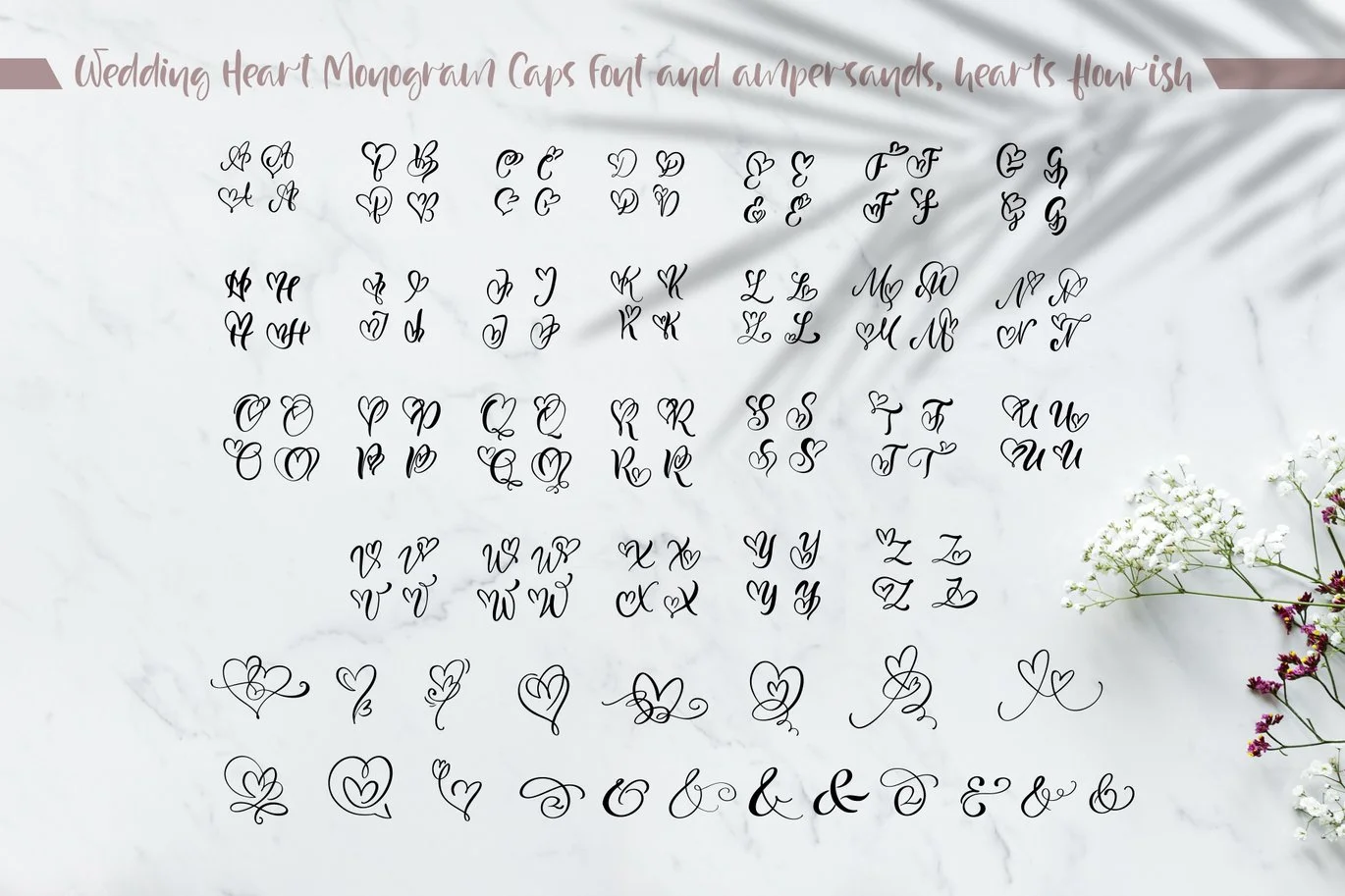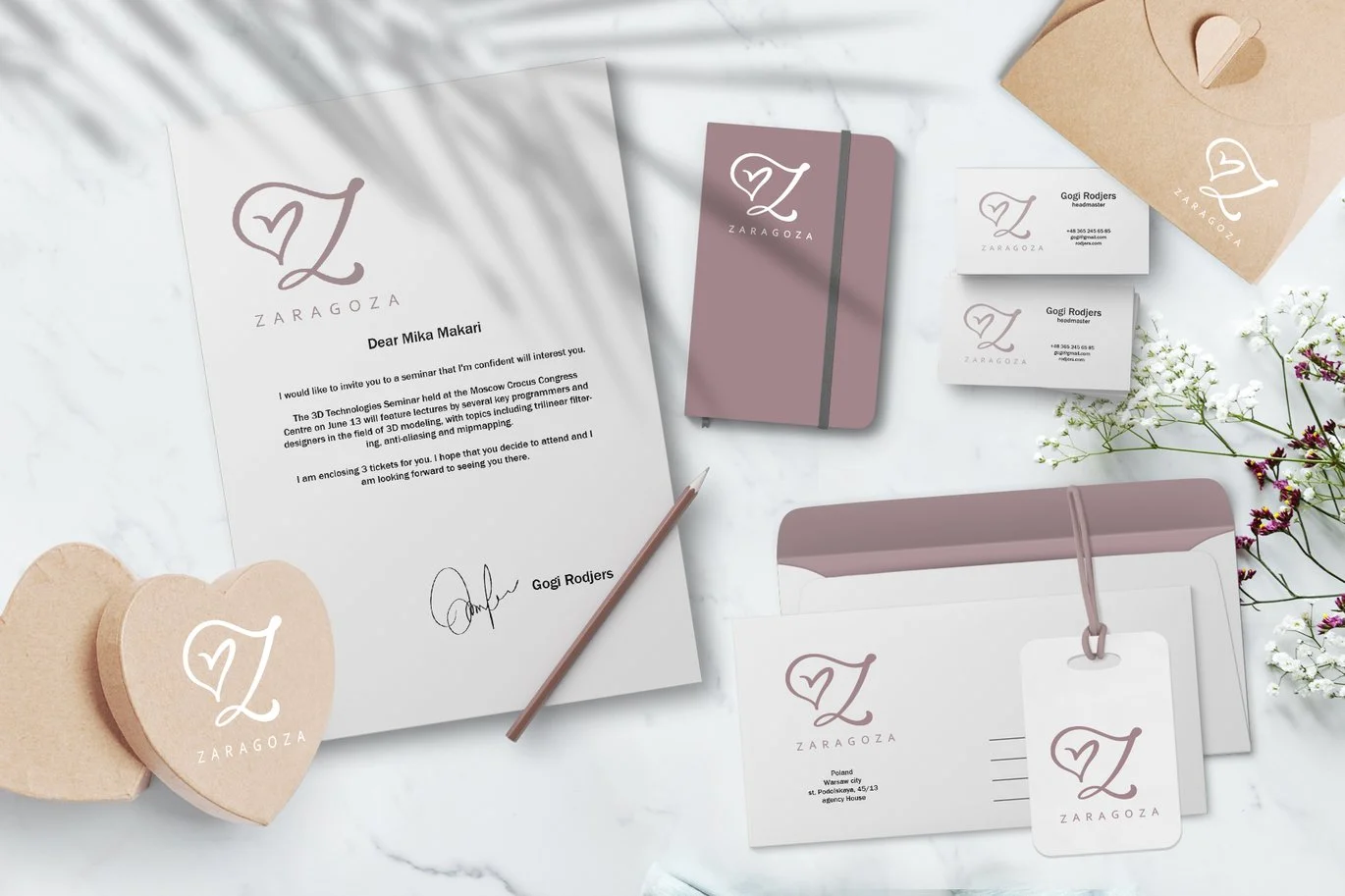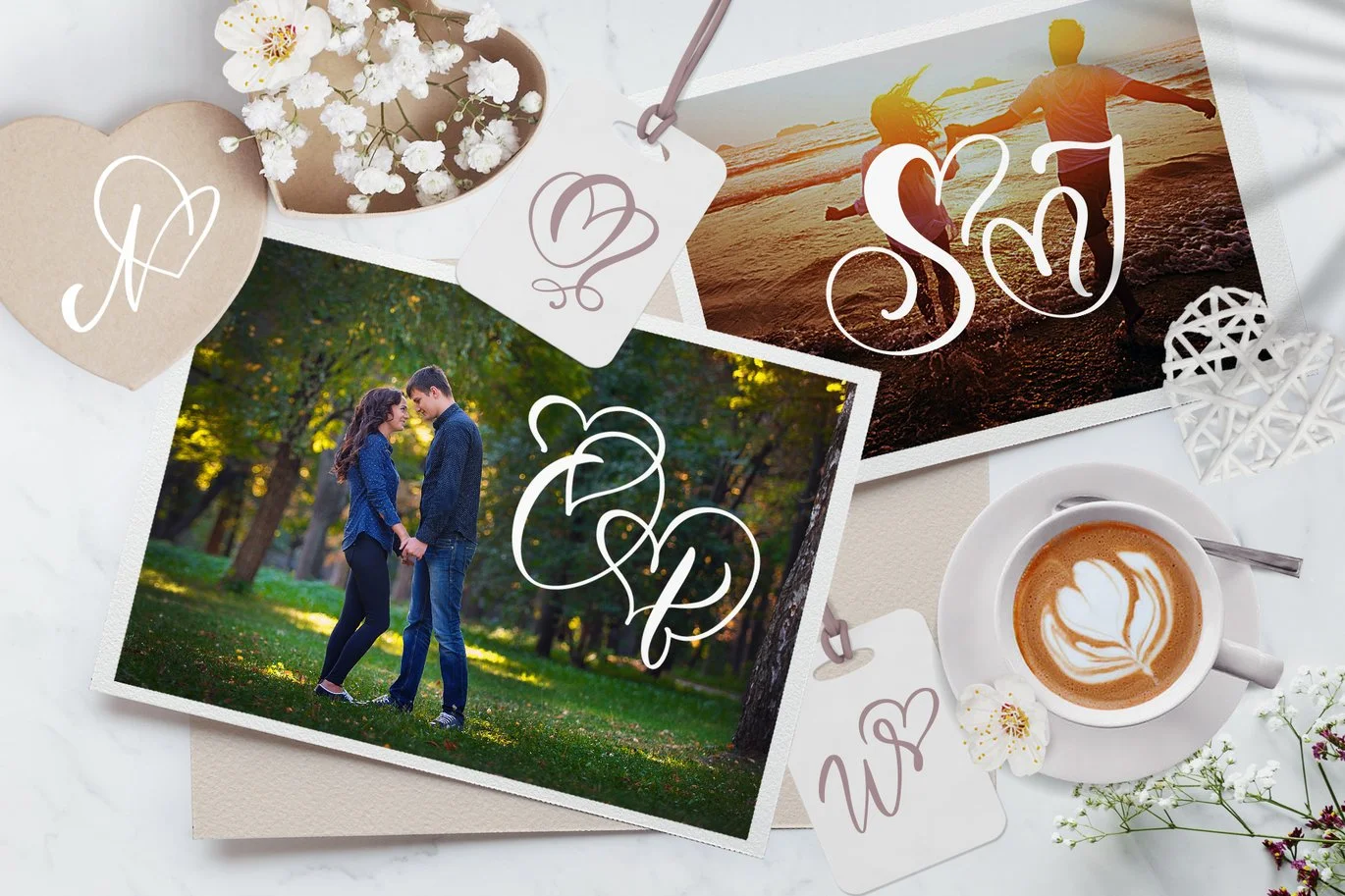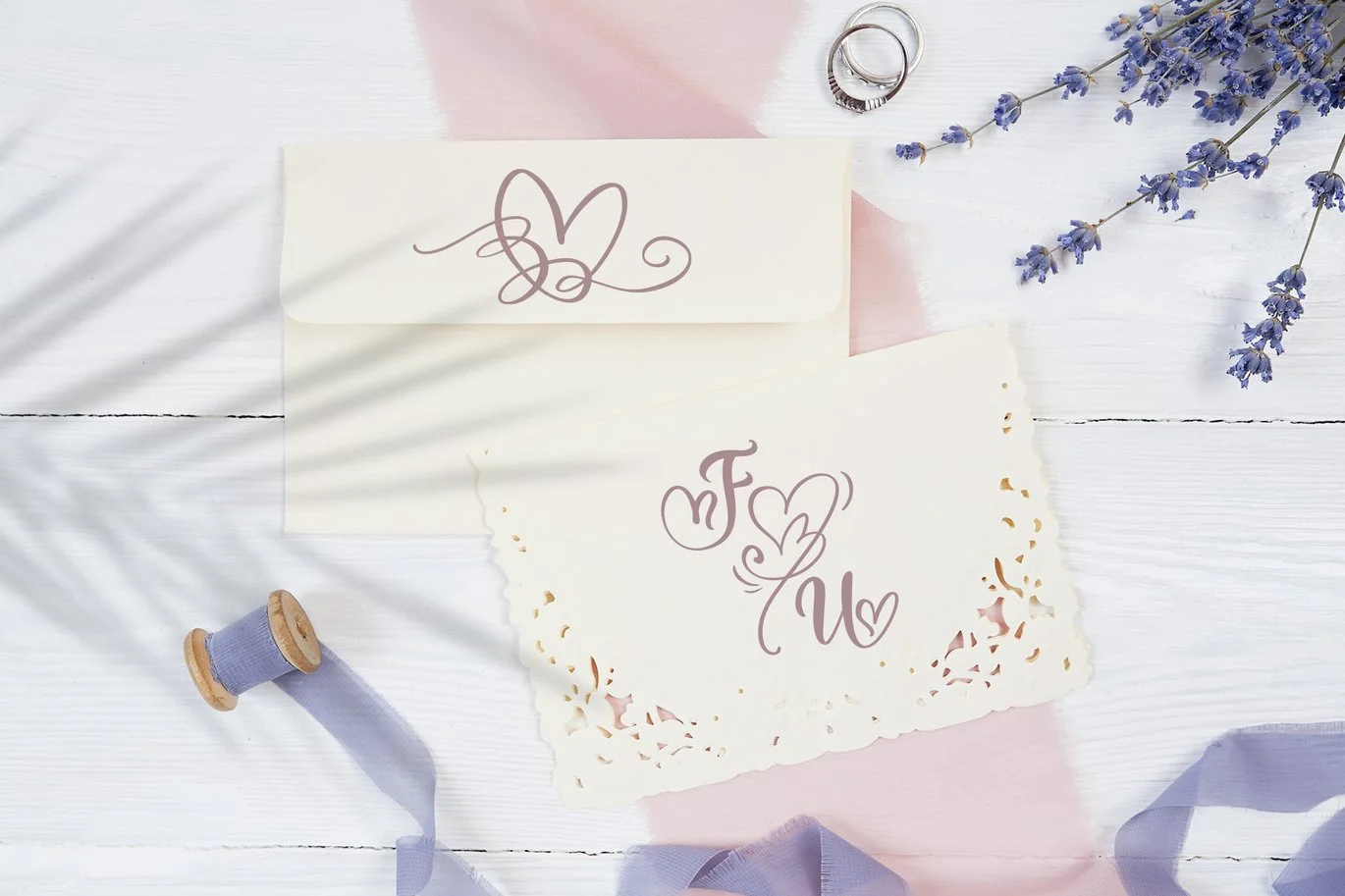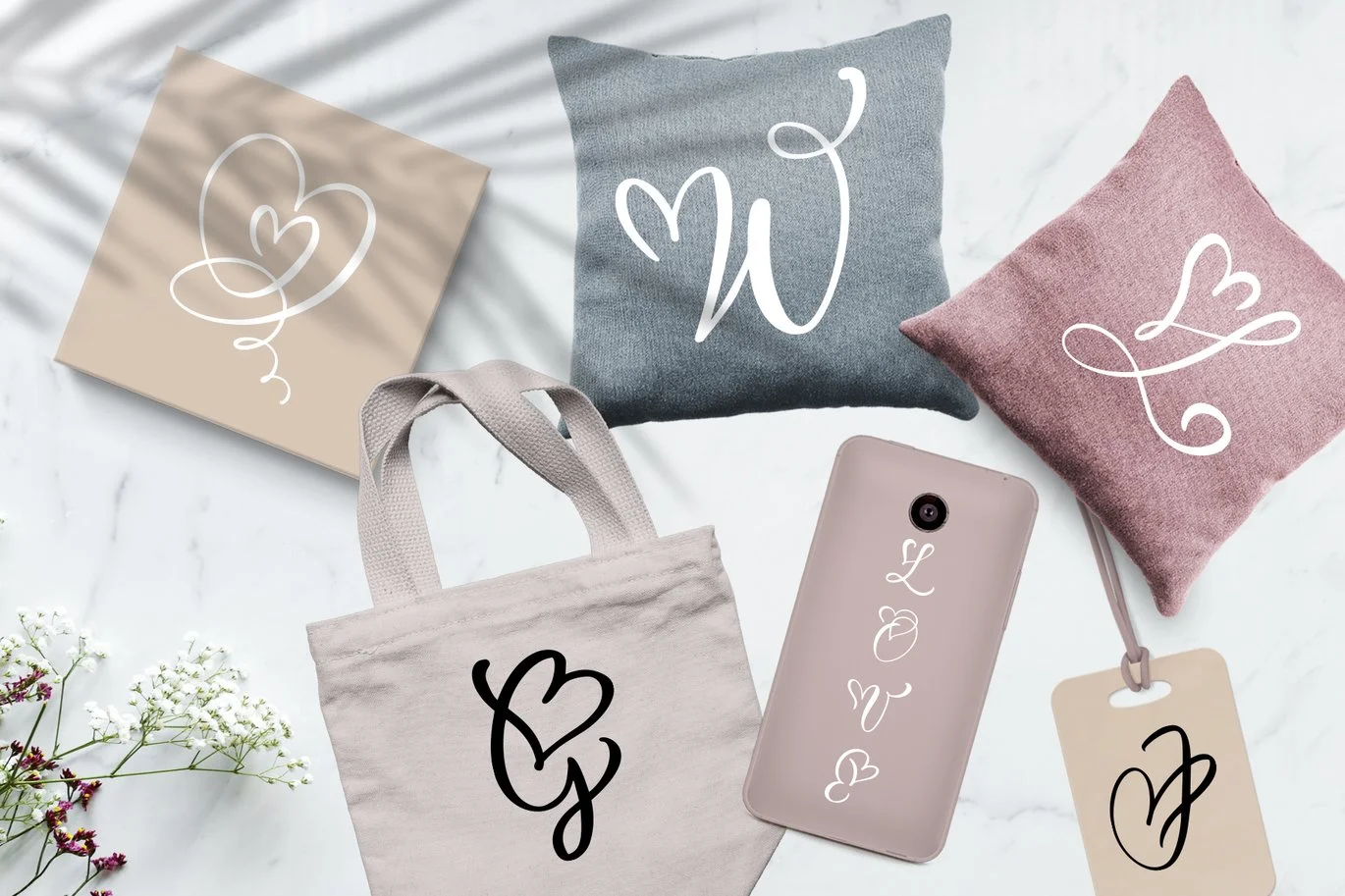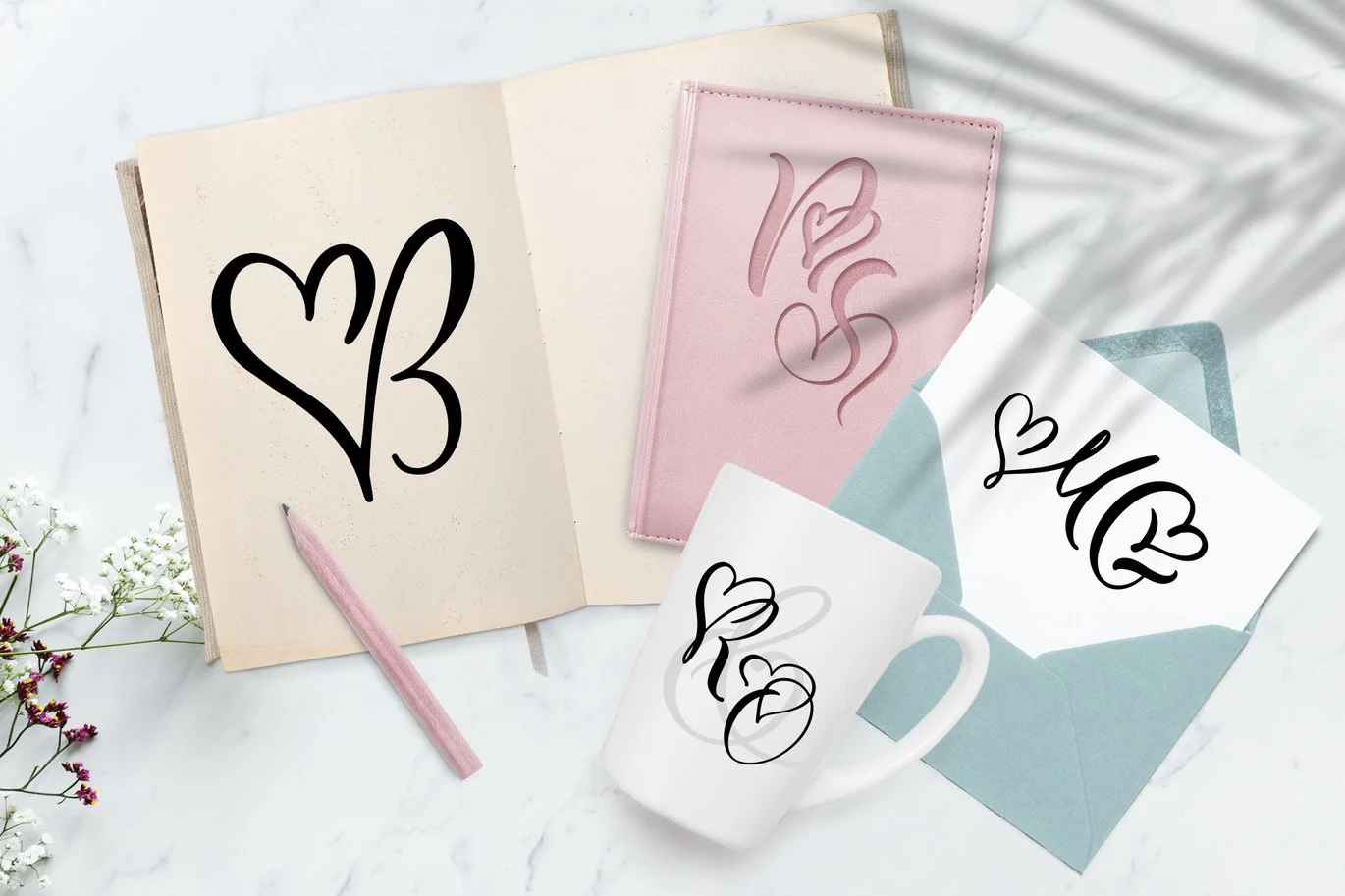
Wedding Heart Monogram Font
The Wedding Heart Monogram Font excels in personalized design applications including custom wedding invitations, heart-centered bridal branding, romantic monogram logos, love-themed product packaging, personalized business cards, romantic portfolios, heart-shaped greeting cards, couple's social media graphics, monogram event signage, and love-inspired marketing materials. Its heart monogram style makes it perfect for projects requiring personal elegance that communicates romantic unity and establishes intimate brand positioning with audiences seeking personalized wedding experiences and heartfelt sophistication.
What makes the Wedding Heart Monogram Font genuinely exciting is its exceptional ability to capture the symbolic beauty and romantic unity of wedding hearts through lovingly crafted letterforms. The font features flowing, heart-inspired strokes with romantic flourishes and monogram proportions that create a distinctly personal appearance. Each character displays remarkable attention to love detail with heart-shaped curves, romantic connections, and unified spacing that give text a deeply personal, hand-lettered quality. The font's heart character and monogram rhythm create an atmosphere of romantic unity while maintaining elegant sophistication and wedding authenticity.
The Wedding Heart Monogram Font family typically includes regular weight with extensive character coverage, featuring uppercase and lowercase letters, numerals, punctuation marks, and international characters. The typeface often incorporates stylistic alternates, contextual ligatures, and heart-inspired swashes that enhance its signature romance. These additional elements provide designers with creative flexibility to customize text appearance and achieve more natural-looking heart monogram lettering that reflects the font's romantic and personalized character.
This romantic signature font distinguishes itself through its remarkable balance of personal intimacy and professional elegance. Unlike generic fonts that lack heart symbolism, Wedding Heart Monogram Font embraces the power of romantic design to create meaningful connections with wedding couples. The font's heart character makes it essential for wedding planners, romantic brands, and personalized businesses where creating heartfelt wedding experiences and romantic memories is fundamental to success in intimate wedding markets.
The Wedding Heart Monogram Font offers designers an exceptional opportunity to incorporate romantic personalization into their wedding projects. From custom wedding stationery to heart-themed celebration brands, this font delivers the romantic signature aesthetic that resonates with couples seeking personal and heartfelt wedding experiences. Its heart appeal ensures your designs communicate romantic unity while the signature styling adds distinctive personality that reflects love symbolism and heart sophistication in any application requiring romantic typography solutions.
Wedding Heart Monogram Font includes unique flourishes heart letters that give romantic and love for wedding holiday greeting cards, invitations, etc. Thin, elegant calligraphic lines give freshness to your handmade creations. Hand drawn ornament Wedding Heart Monogram Font is mapped to regular keyboard keys, so you don't need any additional programs to use them. Just install font, type and go! In this font, uppercase and lowercase characters are same. Only lowercase characters have 3 alternatives. Also, instead of numbers and exclamation mark there are illustrations of hearts. Ampersand has several alternatives. The choice of alternative letters is possible in Photoshop and Illustrator CC and other programs that support alternatives. PERFECT FOR Decorate your albums, wedding and holiday greeting cards (Christmas, Birthday, Valentine's Day other holidays), logos, gift shops, tag, social media, internet shops presentation. !!! PLEASE NOTE !!!! This is a digital download item in ttf, otf and woff, as well as vector AI, EPS, SVG. No physical product will be mailed to you. This font is not for writing words or sentences, but for monograms. For example A&H. All illustrations on photos it`s for example. You will have only Wedding Heart Motogram font. WHAT’S INCLUDED: Flourish font Wedding Heart Monogram in TTF, OTF and WOFF file formats; Bonus - All characters Wedding Heart Monogram in AI, EPS and SVG formats. HOW TO USE YOUR FILES: Save the ZIP file to your device and when the download has been completed proceed to extract the files using an uncompressing program such as WinRAR or WinZip that you can easily download from the web for free! Install font on your computer (press left click of mouse, choise Install). Open your program - Photoshop, Illustrator, InDesign, Word, etc. and choise font Wedding Heart Monogram with list fonts in programm. Press keys on keyboard a&f h C b D 1 2 3... (which you want). Enjoy!!!